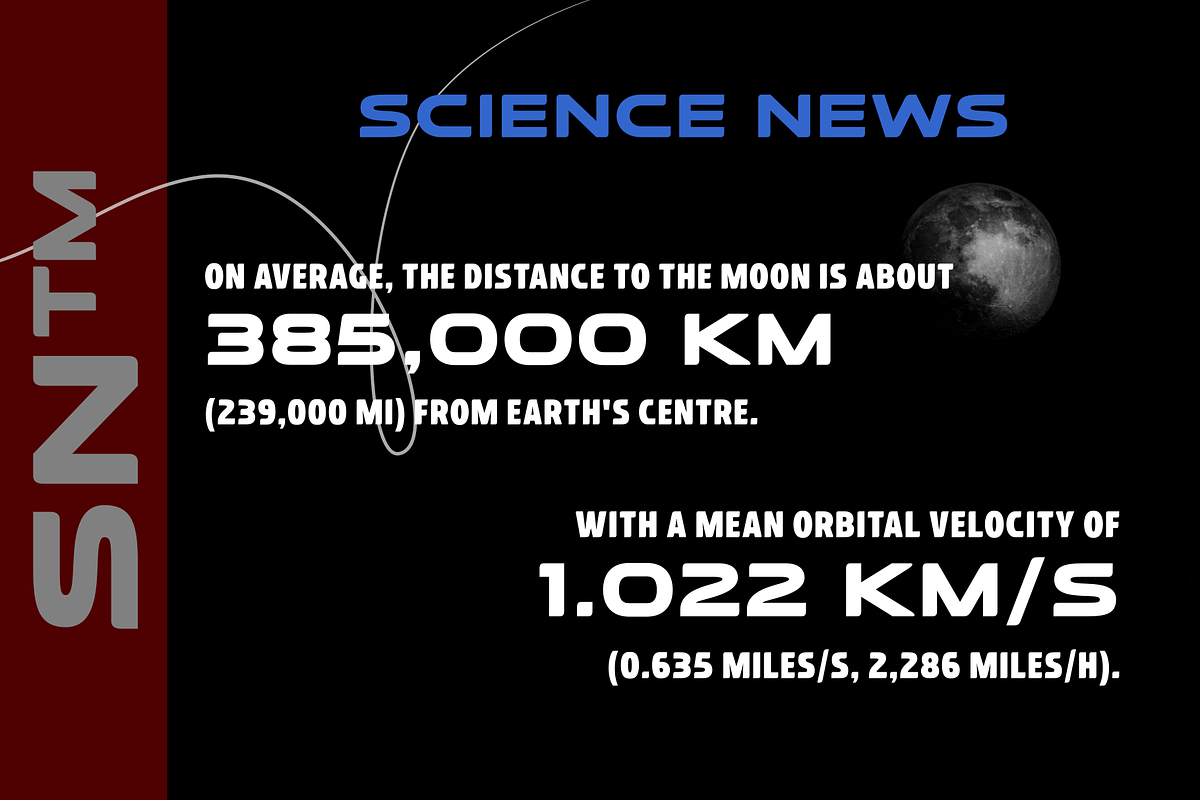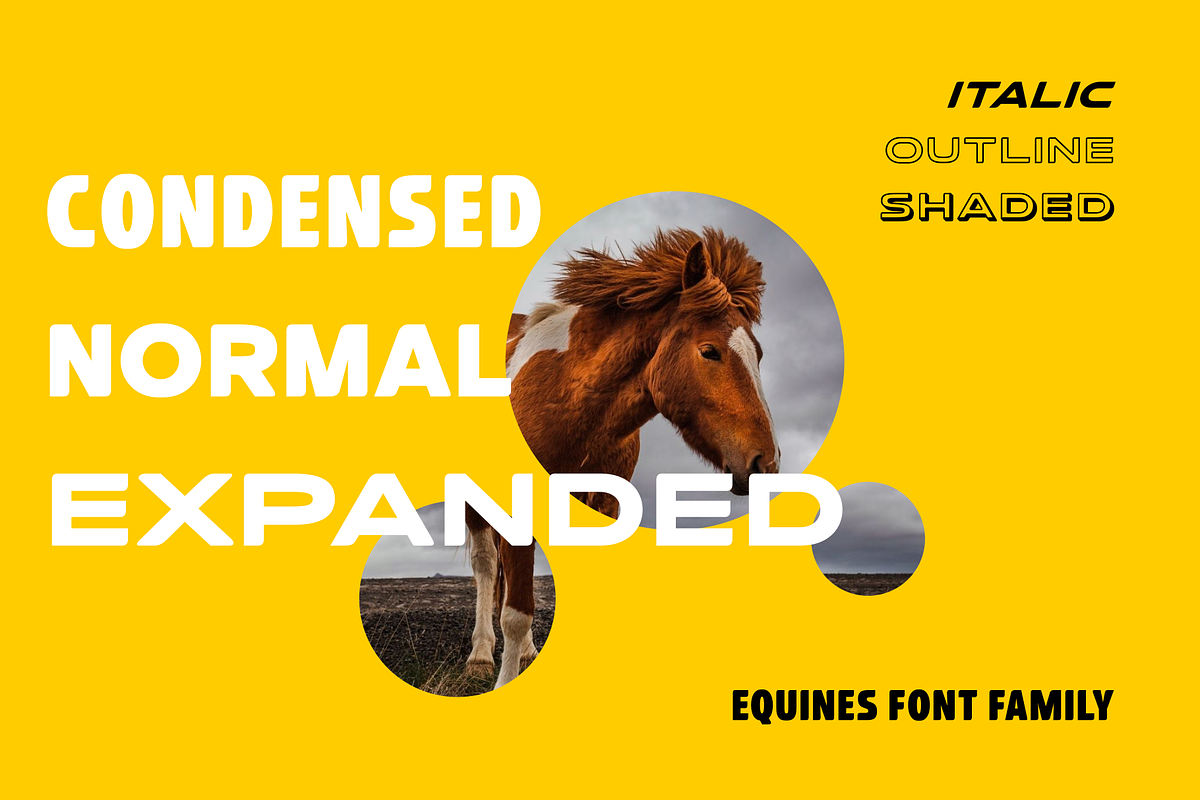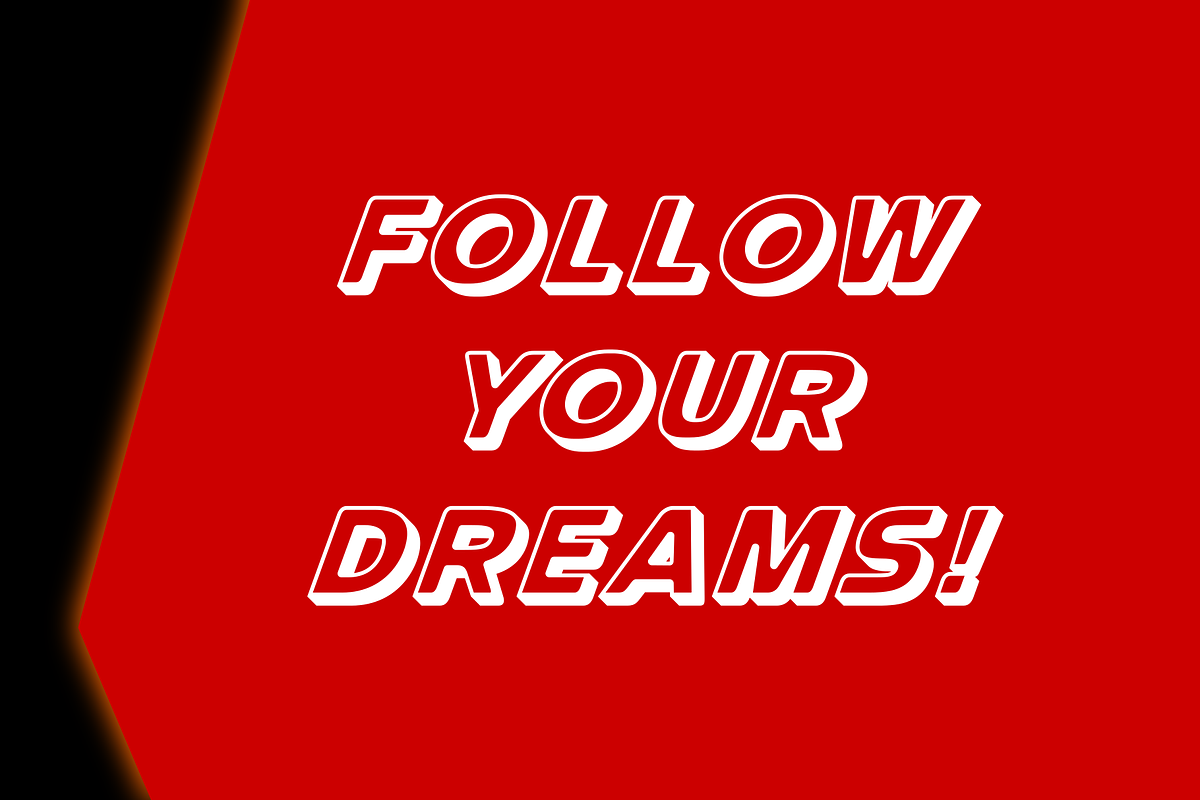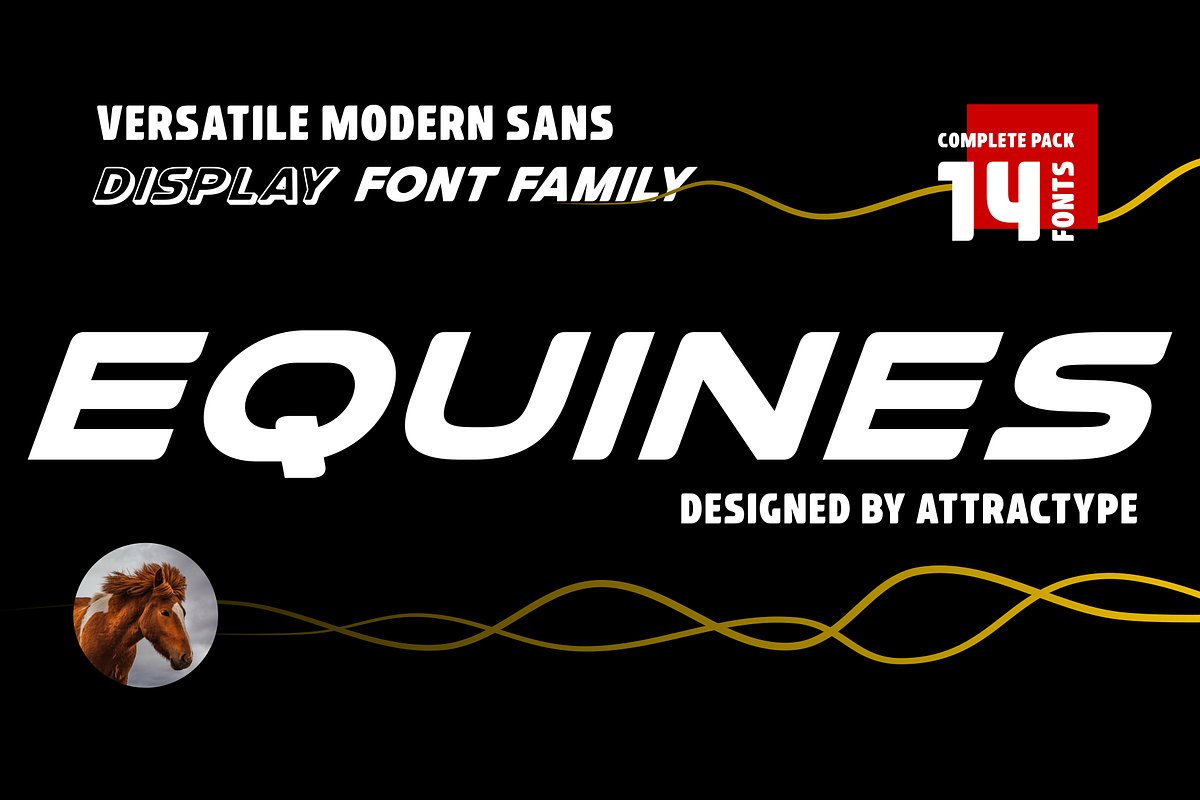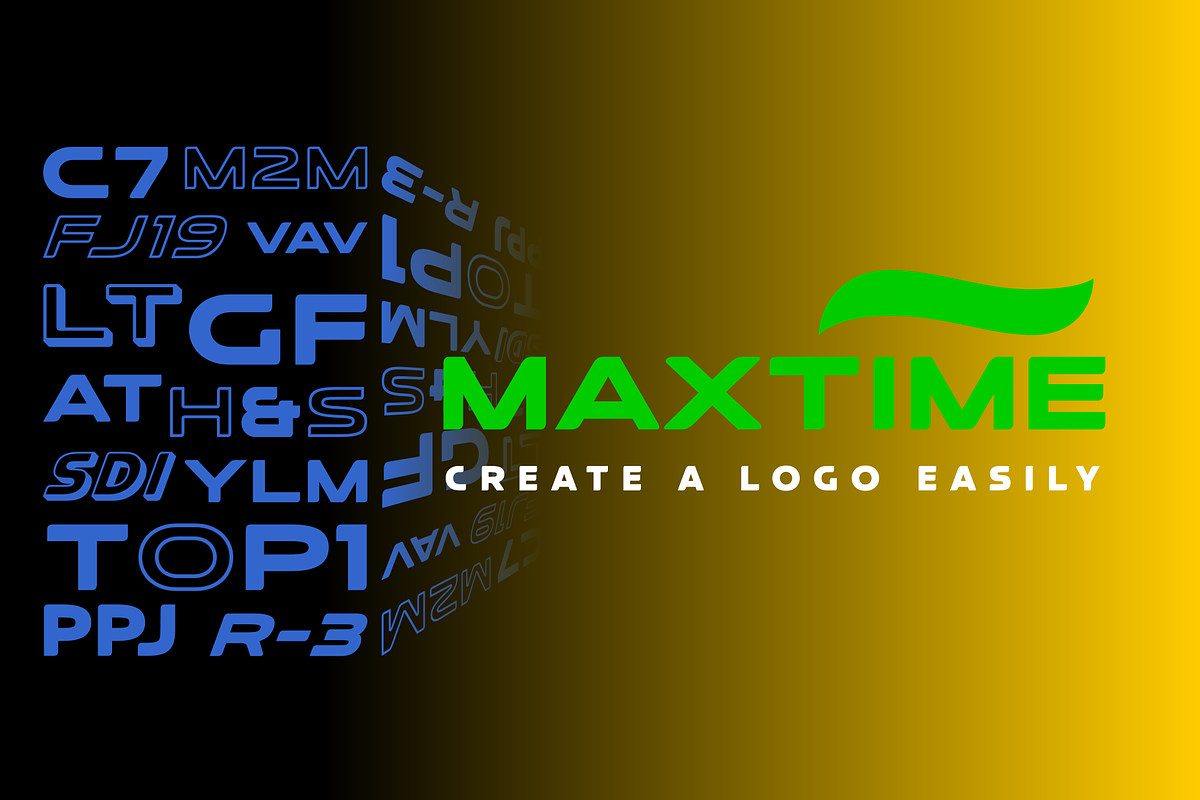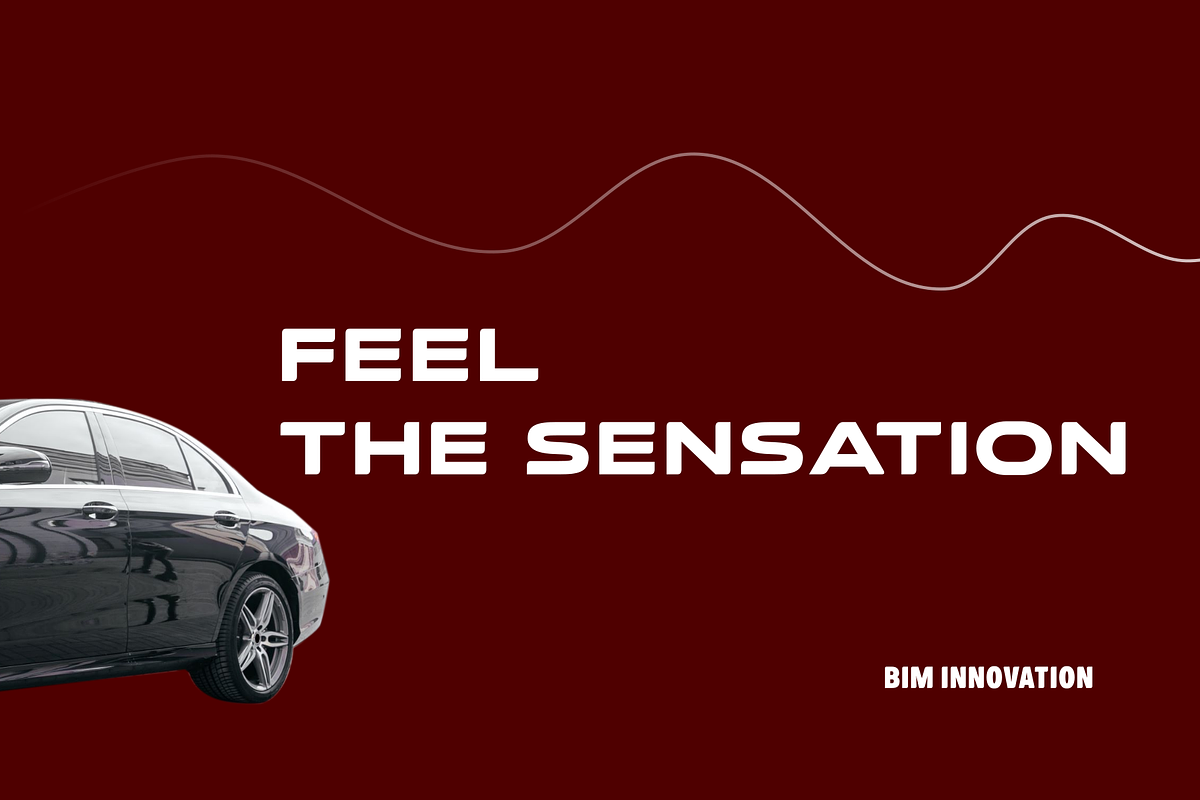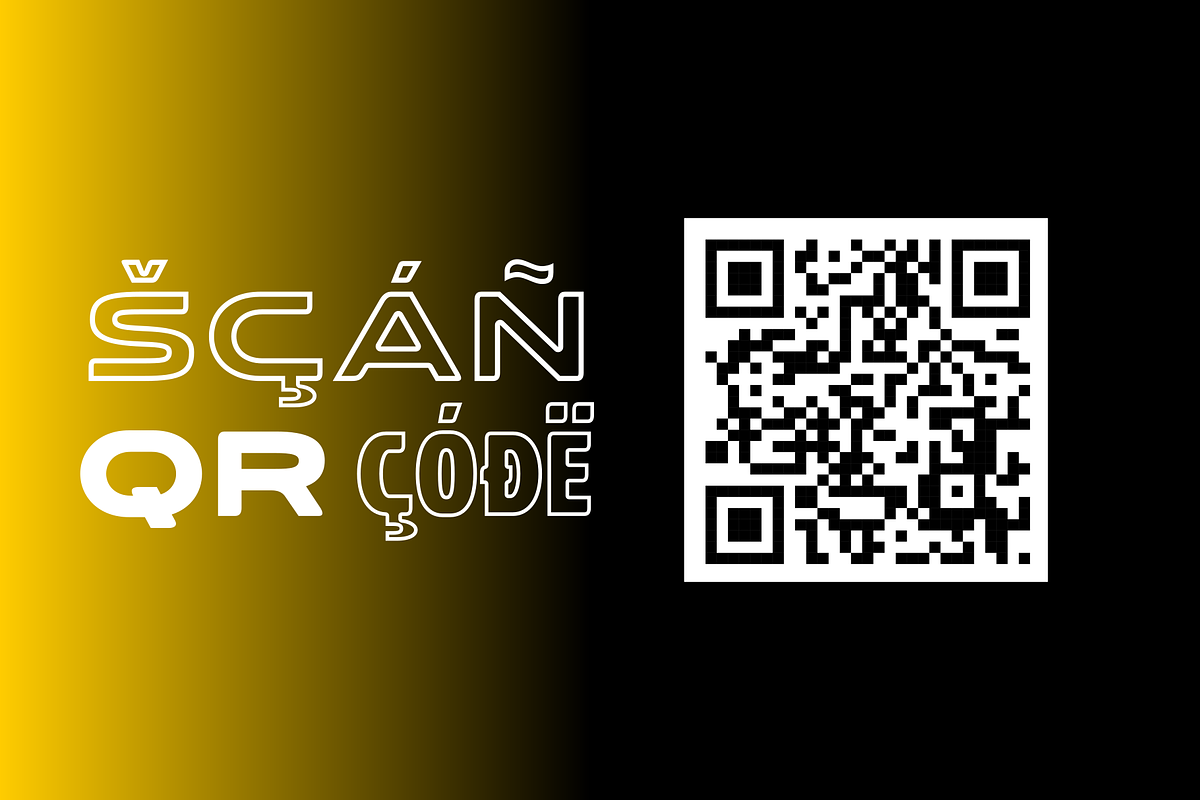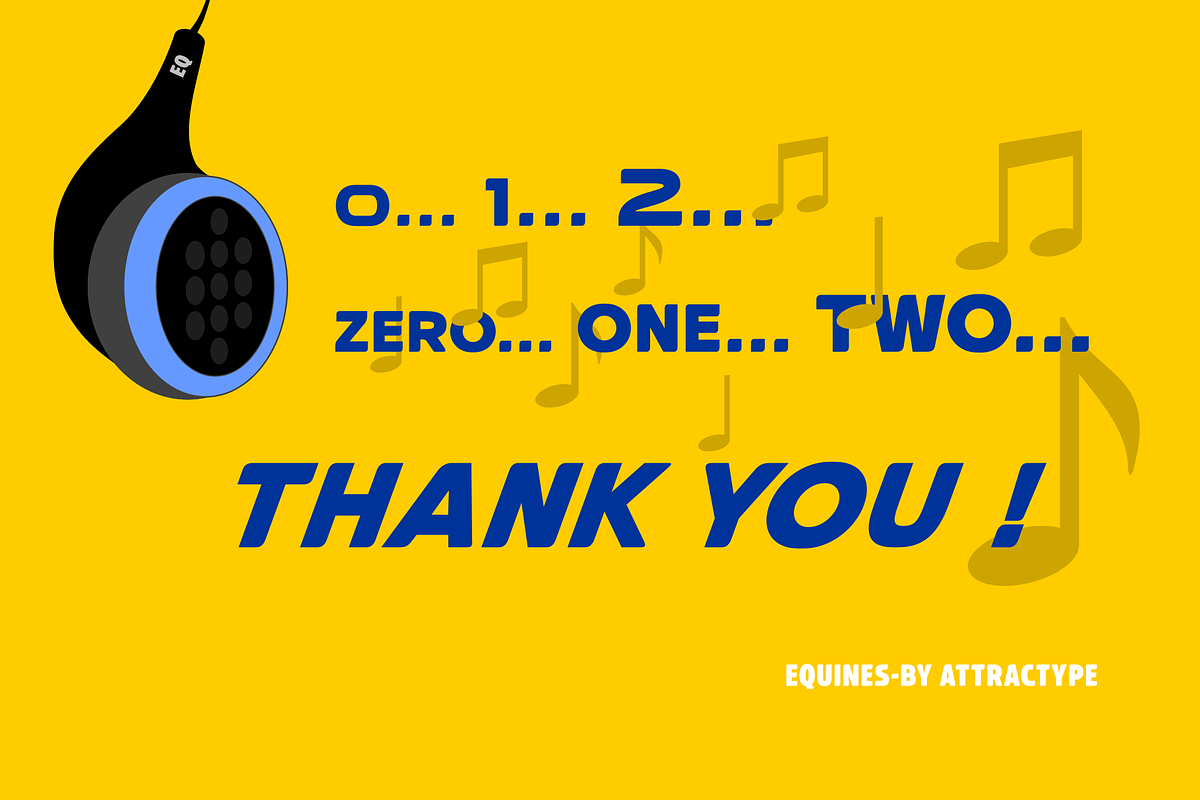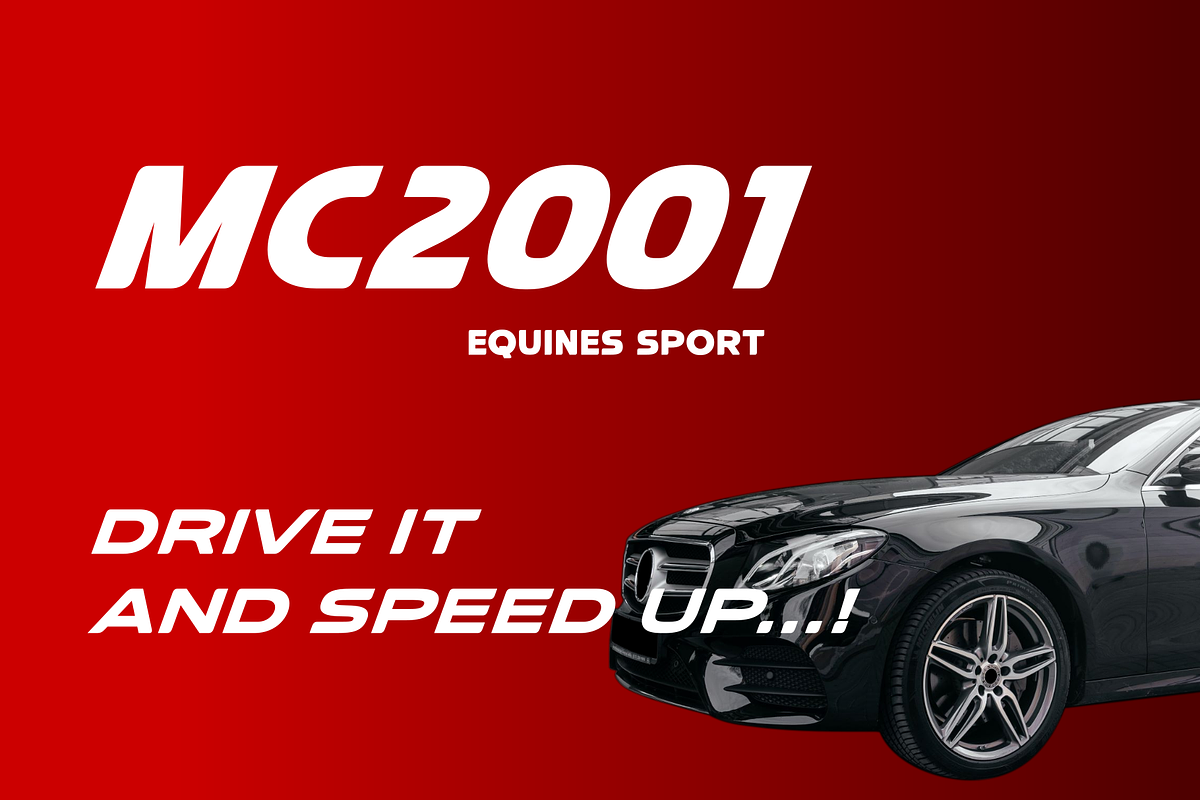
Equines Display Bold Family Complete
EQUINES DISPLAY BOLD FONT FAMILY
COMPLETE FAMILY PACK OF 14 FONTS
Equines Display is a versatile font family designed specifically for display purposes. Its modern, thick and strong appearance is perfect for branding, logos, banners and any lettering that requires bold and clear letters.
To add an artistic image rather than just the thickness of the shape, Equines Display adds a rounding feature to the corners of the letters with a cross system, which makes the word display dynamic, strong and elegant.
Until this description was published, Equines Display had 14 styles including condesed, expanded, outline and shaded in hopes of meeting the display font needs of designers and everyone at large.